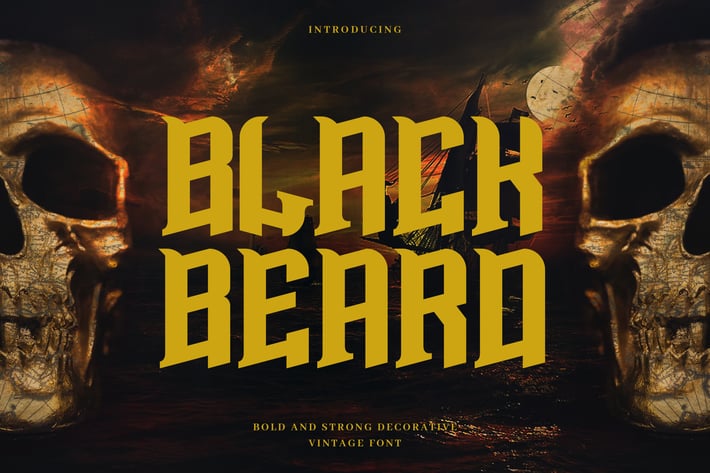
Blackbeard - Vintage Bold Display Typeface
Introducing Blackbeard font. Are you looking for a bold and solid display font that has vintage feeling? We can help! Try to download our Blackbeard font. The font is suitable to use for any vintage occasion such as book, logo, band, event, and others :)